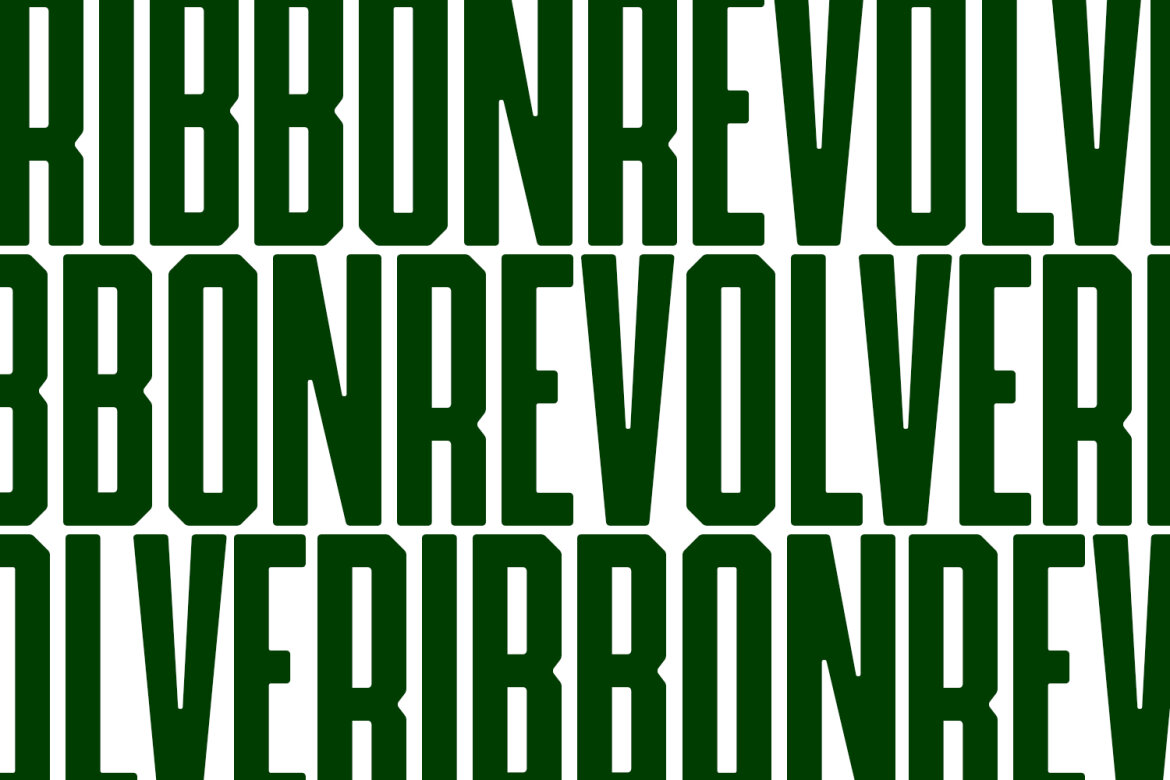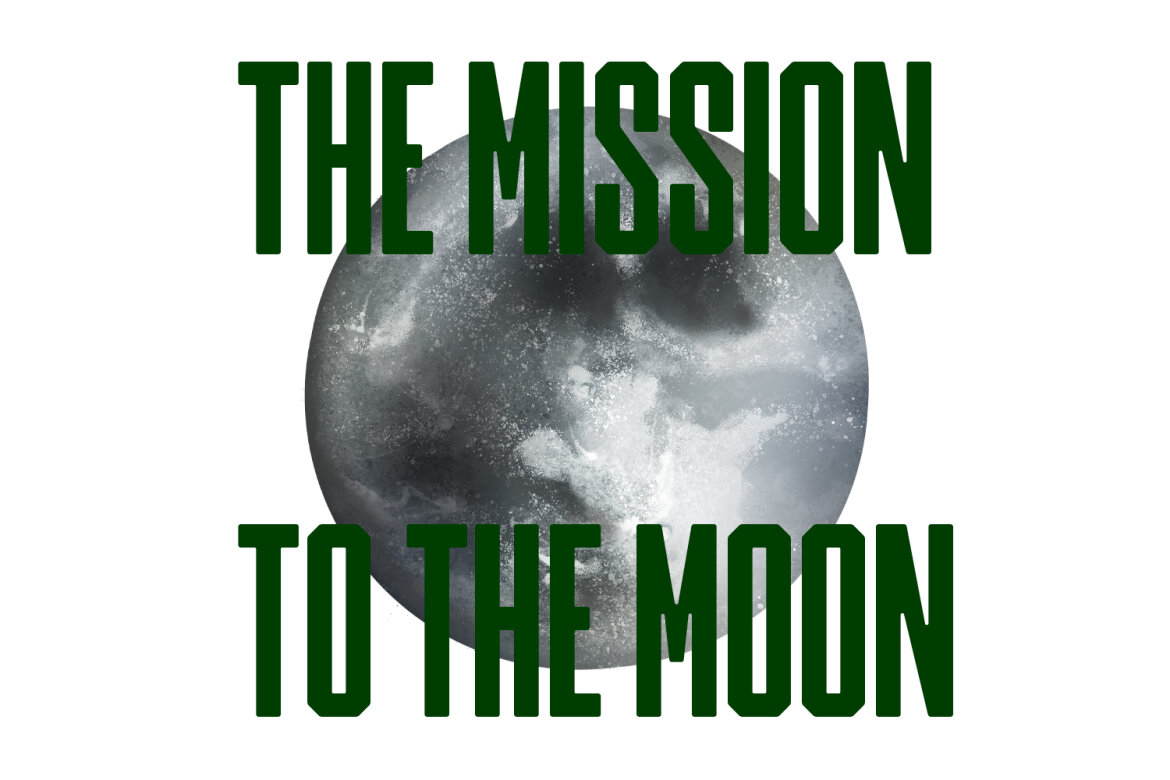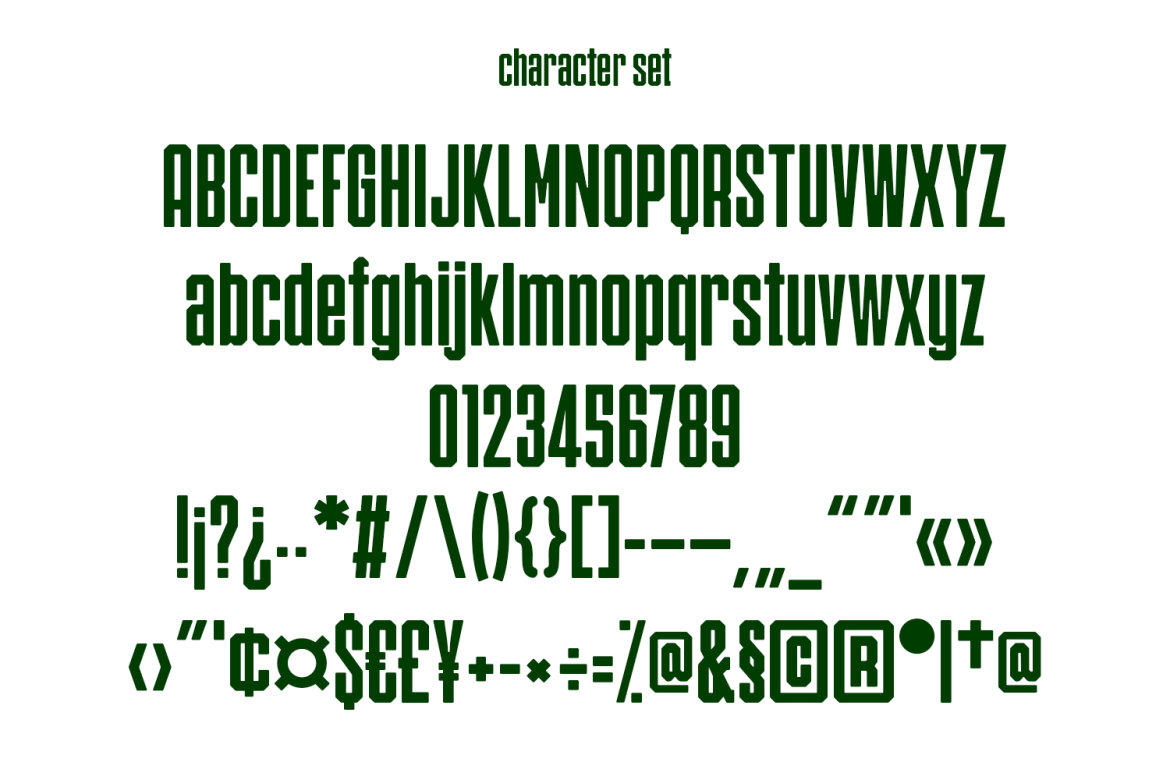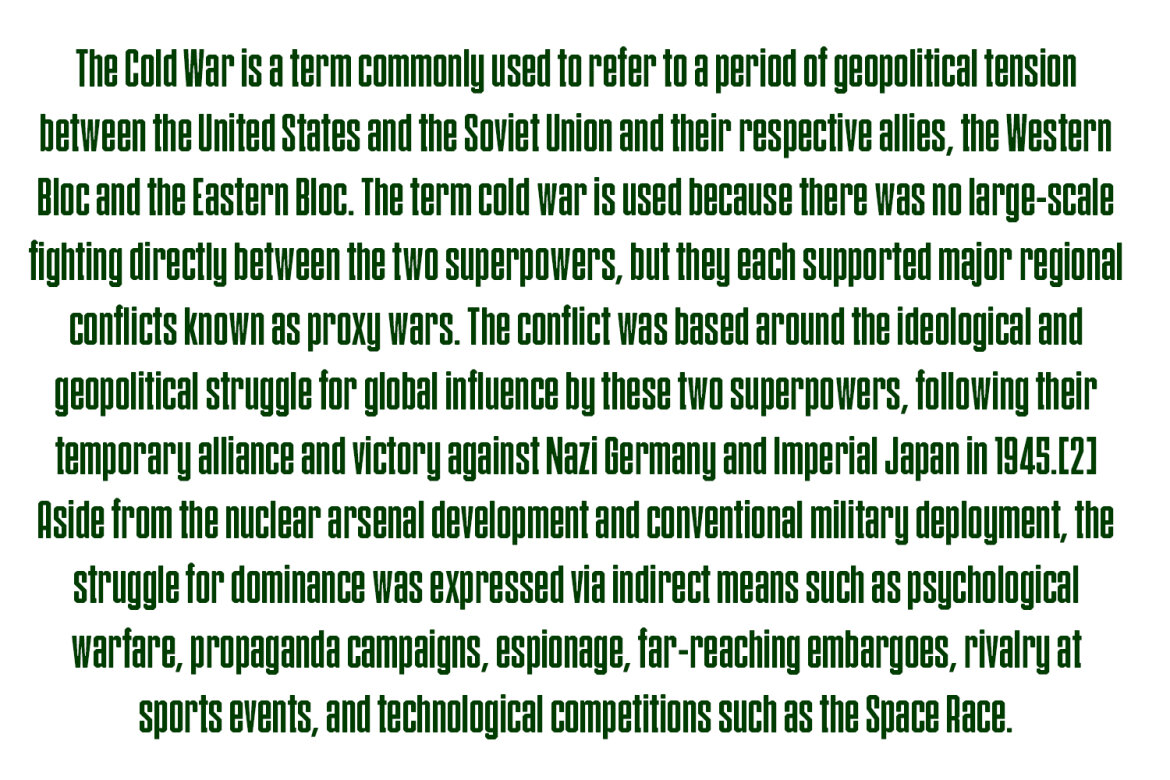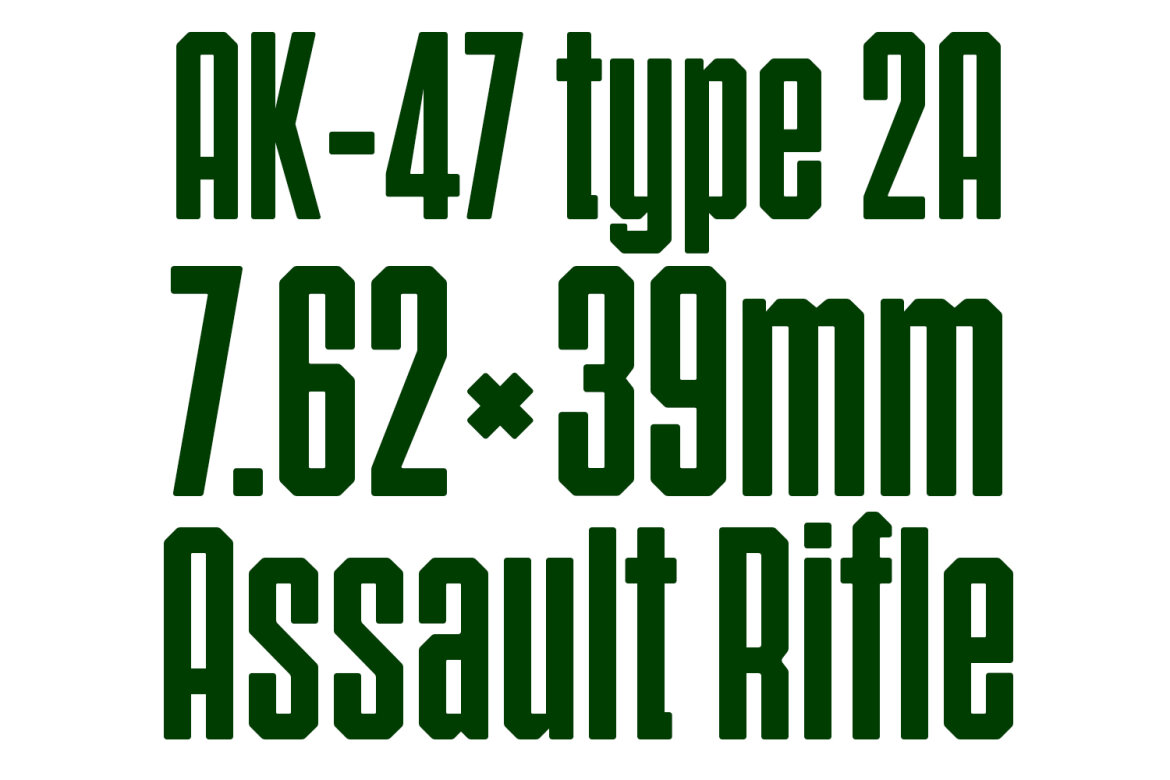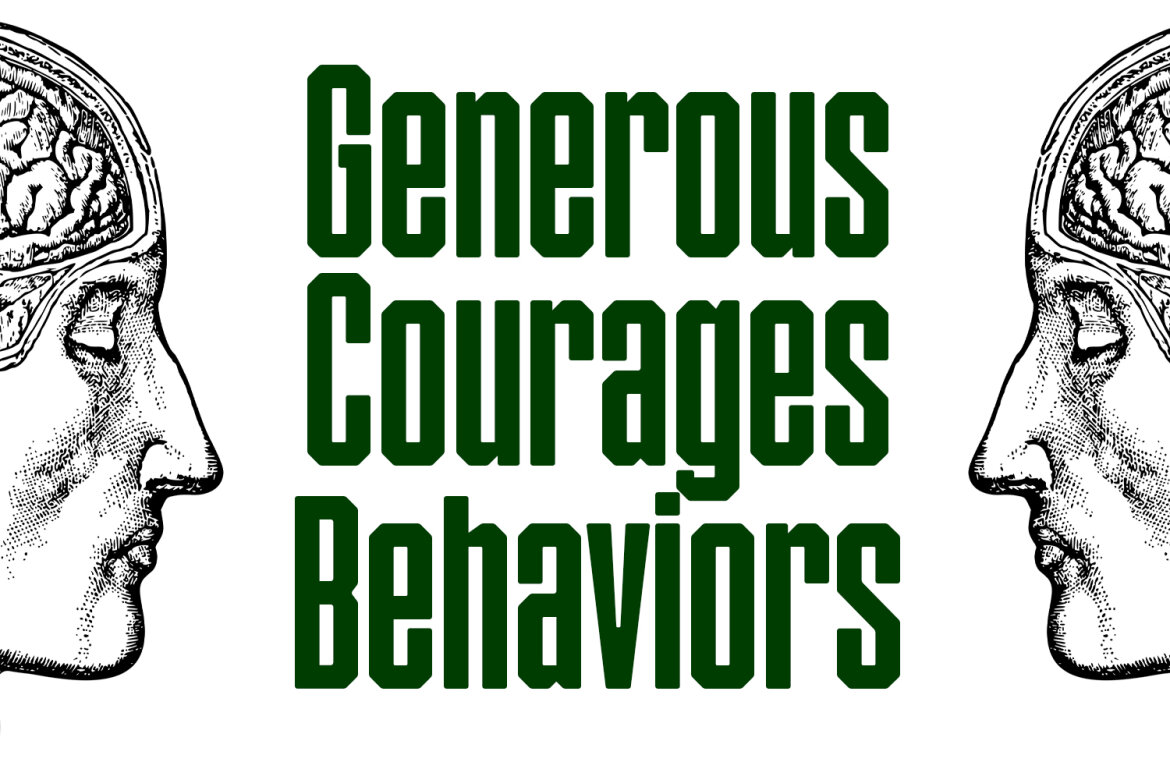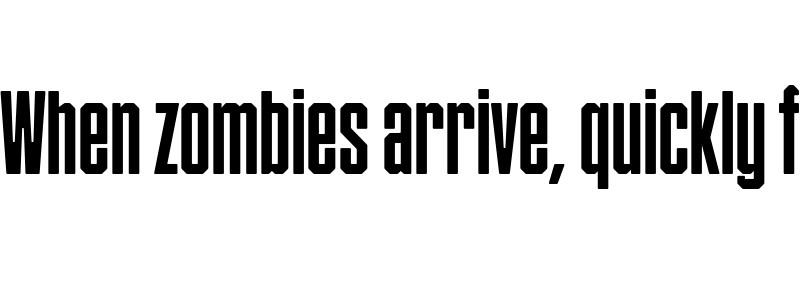
Alterta Sans FREE Font
Alterta
Alterta is a modern fun sans serif Display font. With condensed stroke, fun character with a bit of ligatures and alternates. To give you an extra creative work. Alterta font support multilingual more than 100+ language. This font is good for logo design, Social media, Movie Titles, Books Titles, a short text even a long text letter and good for your secondary text font with script or serif. Make a stunning work with Alterta font.